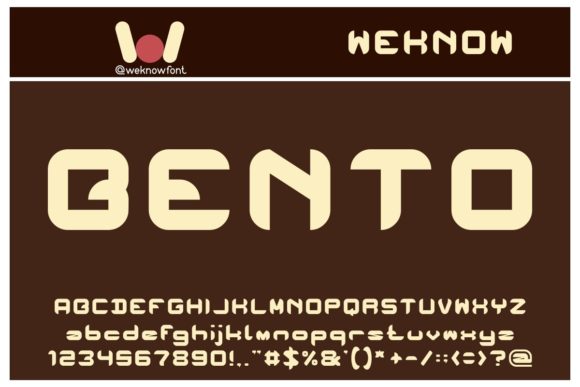
Bento: A Versatile Display Font for Creative Expression
In the world of design, typography plays a crucial role in conveying messages, setting tones, and creating visual identities. One such font that has captured the attention of designers and creatives alike is Bento. Known for its elegant and distinctive appearance, Bento is more than just a typefaceβit's a tool that can elevate any project from ordinary to extraordinary.
Designed with a blend of modernity and classic charm, Bento offers a unique aesthetic that stands out in a sea of generic fonts. Its clean lines and balanced structure make it highly readable, even at smaller sizes, while its decorative elements add a touch of sophistication. This combination makes Bento an ideal choice for a wide range of applications, from logos and headlines to branding and editorial design.
The Characteristics of Bento
Bento's appeal lies in its carefully crafted letterforms. Each character is designed with precision, ensuring consistency and harmony across the entire font family. The uppercase letters are slightly condensed, giving the font a sleek and contemporary look, while the lowercase letters maintain a friendly and approachable feel. This balance between formality and informality allows Bento to adapt to various design contexts seamlessly.
One of the most notable features of Bento is its versatility. Whether used in a minimalist layout or a complex composition, Bento maintains its clarity and impact. The font includes a range of weights and styles, allowing designers to experiment with different visual hierarchies and emphasize key elements effectively. This flexibility makes Bento a valuable asset in both digital and print media.
Applications of Bento in Design
Bento's adaptability makes it suitable for a variety of creative projects. In the realm of corporate identity, Bento can be used to create strong and memorable logos that reflect a brand's personality. Its refined yet approachable style is particularly effective for businesses that want to convey professionalism without appearing too rigid. For example, a tech startup might use Bento to establish a modern and innovative image, while a boutique fashion label could leverage its elegance to evoke a sense of sophistication.
In the apparel industry, Bento can be incorporated into clothing labels, tags, and promotional materials. Its legibility ensures that essential information is easily readable, while its visual appeal adds a touch of class to the overall design. Similarly, in the music and entertainment sectors, Bento can be used for album covers, event posters, and social media graphics, helping to capture the essence of a brand or artist.
For digital platforms such as YouTube and Instagram, Bento can enhance the visual storytelling of content creators. Whether used in thumbnails, captions, or profile names, the font adds a layer of creativity and uniqueness that sets content apart from the competition. Its ability to work well on screens of all sizes makes it a practical choice for online design projects.
Bento in Editorial and Publishing
When it comes to magazines, books, and comics, Bento can serve as a powerful headline font that draws readers in and guides them through the content. Its readability ensures that even lengthy articles remain engaging, while its stylistic elements add visual interest. For instance, a lifestyle magazine might use Bento for section titles to create a cohesive and stylish layout, while a graphic novel could employ it for chapter headings to enhance the narrative experience.
In academic and research settings, Bento can be used to present data and findings in a visually appealing manner. While it may not be the best choice for body text due to its decorative nature, it can be effectively utilized for headings, subheadings, and captions. This helps to organize information and improve the overall readability of reports, presentations, and publications.
Considerations When Using Bento
While Bento is a versatile and attractive font, it's important to consider its limitations and appropriate use cases. Due to its decorative elements, Bento may not be the best choice for large blocks of text, where legibility is paramount. In such instances, a sans-serif or serif font with a simpler design would be more suitable.
Another consideration is the context in which Bento is used. While it works well in many design scenarios, it may not align with the desired tone or message of a particular project. For example, a high-end luxury brand might prefer a more traditional or minimalist font to reflect its values, whereas a trendy streetwear label could benefit from Bento's bold and expressive style.
In conclusion, Bento is a remarkable display font that offers both aesthetic appeal and functional versatility. Whether used in corporate branding, editorial design, or digital media, Bento provides a fresh and distinctive alternative to conventional typefaces. By understanding its characteristics, applications, and considerations, designers can harness the full potential of Bento to create compelling and impactful visual experiences.